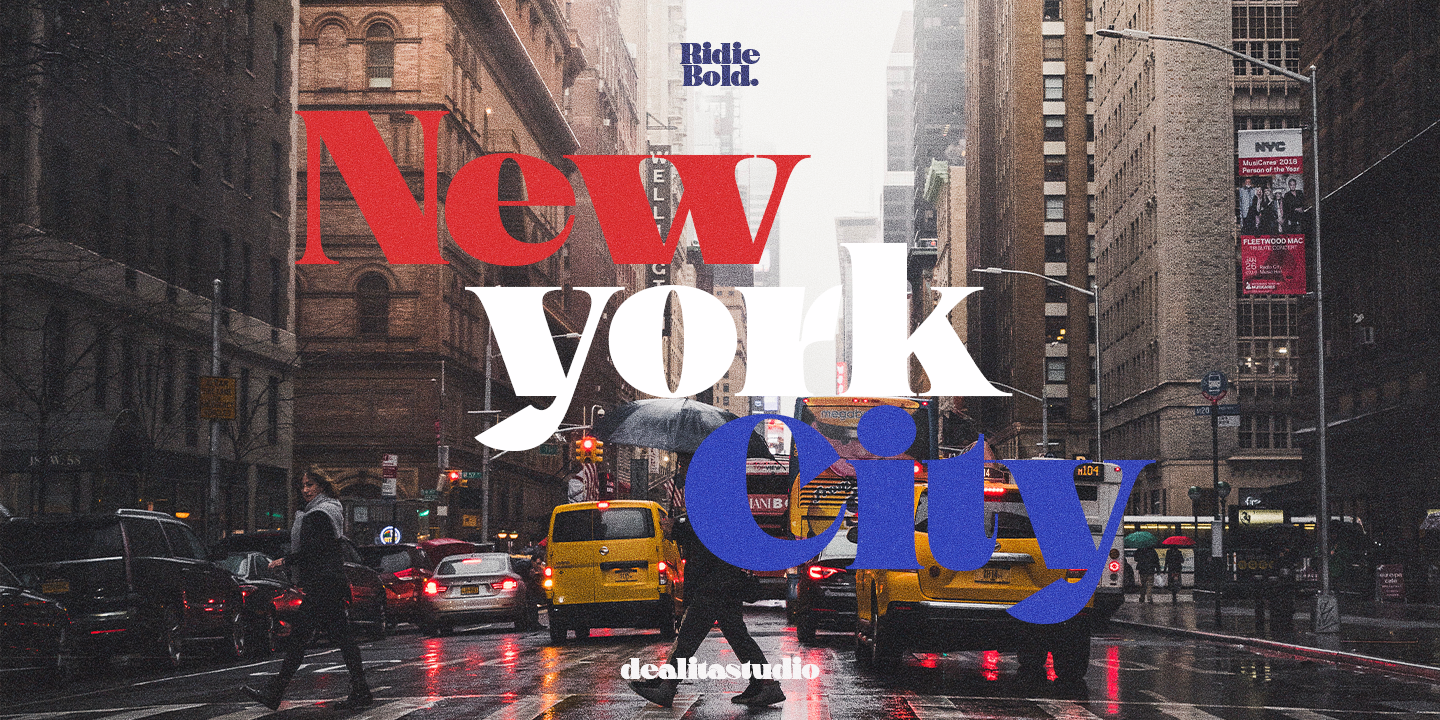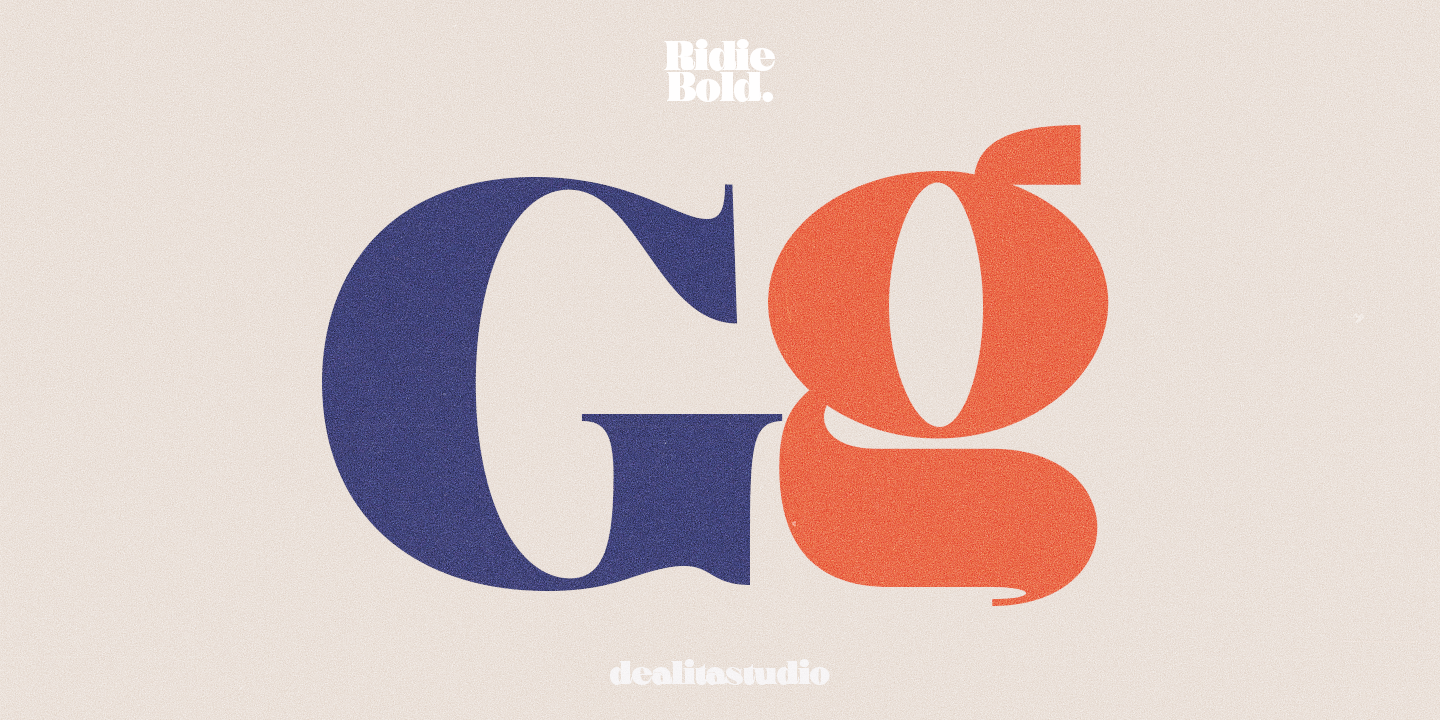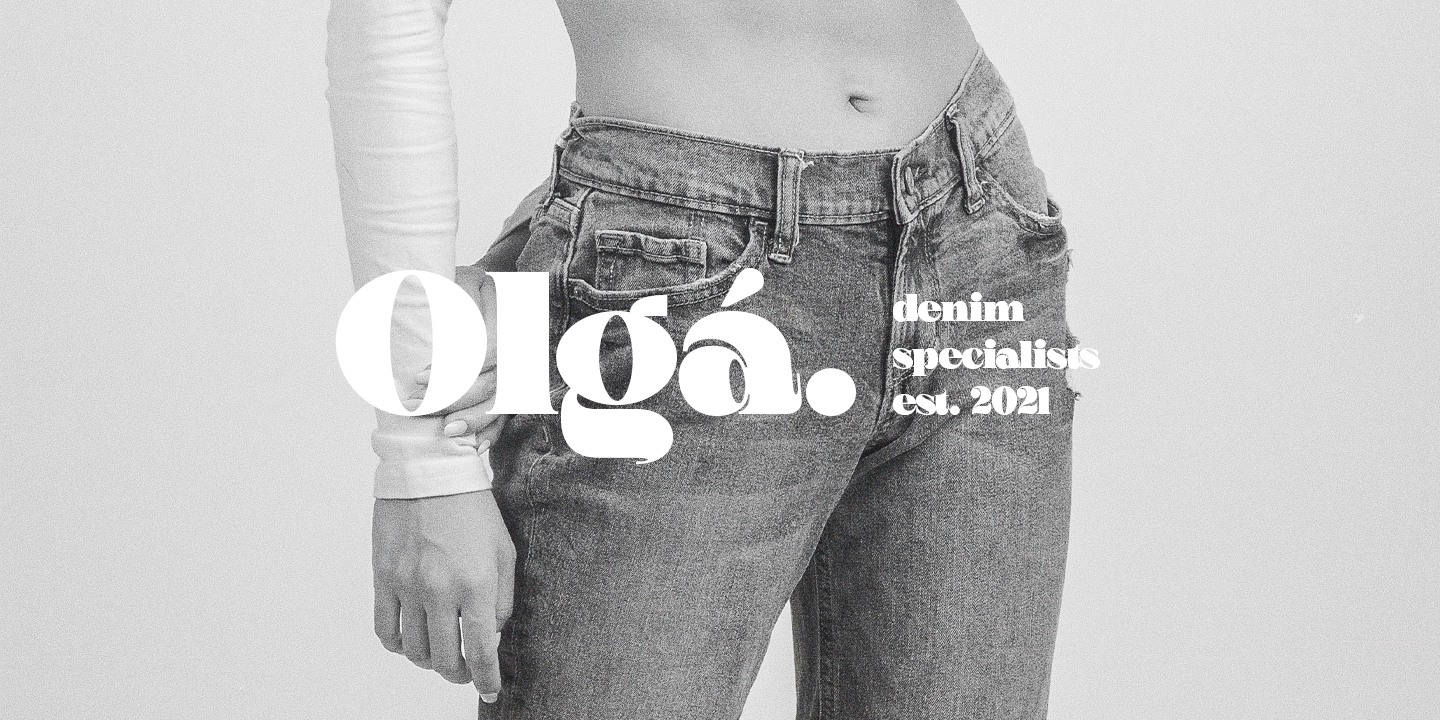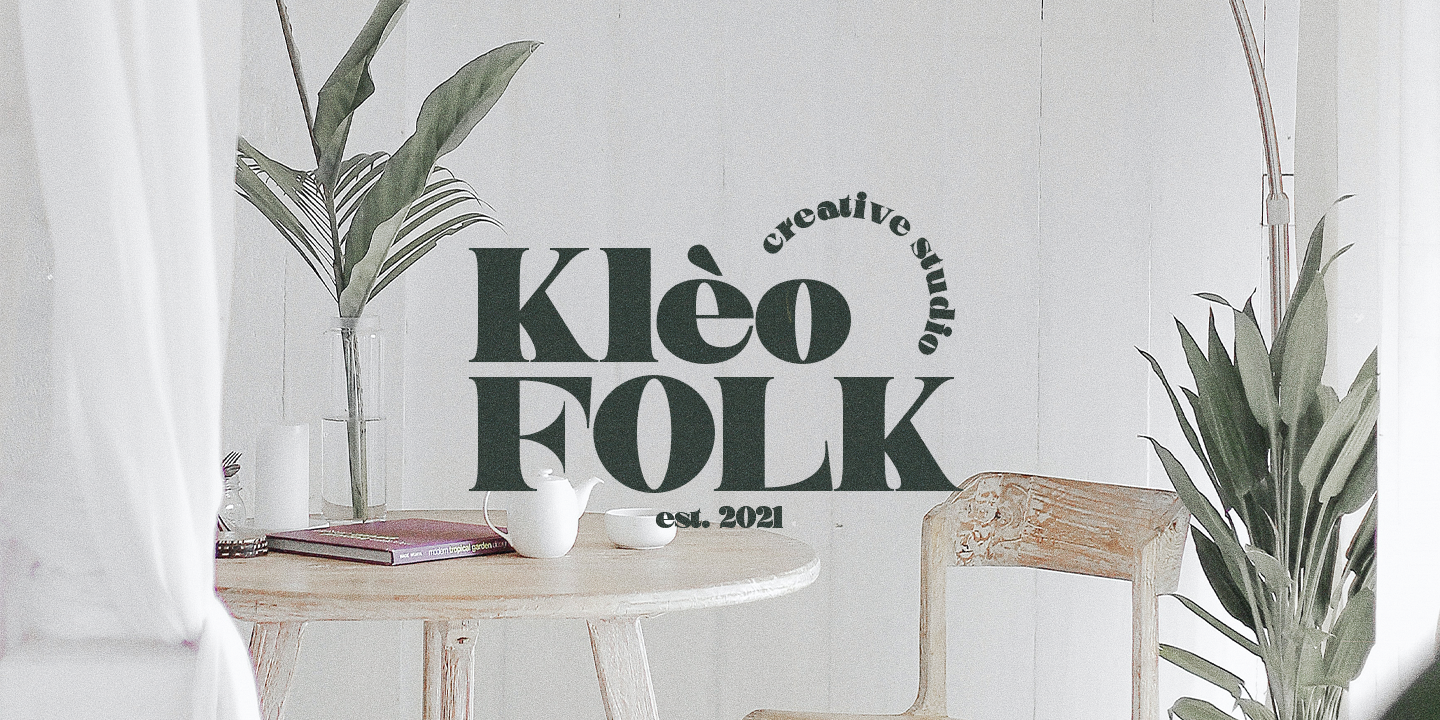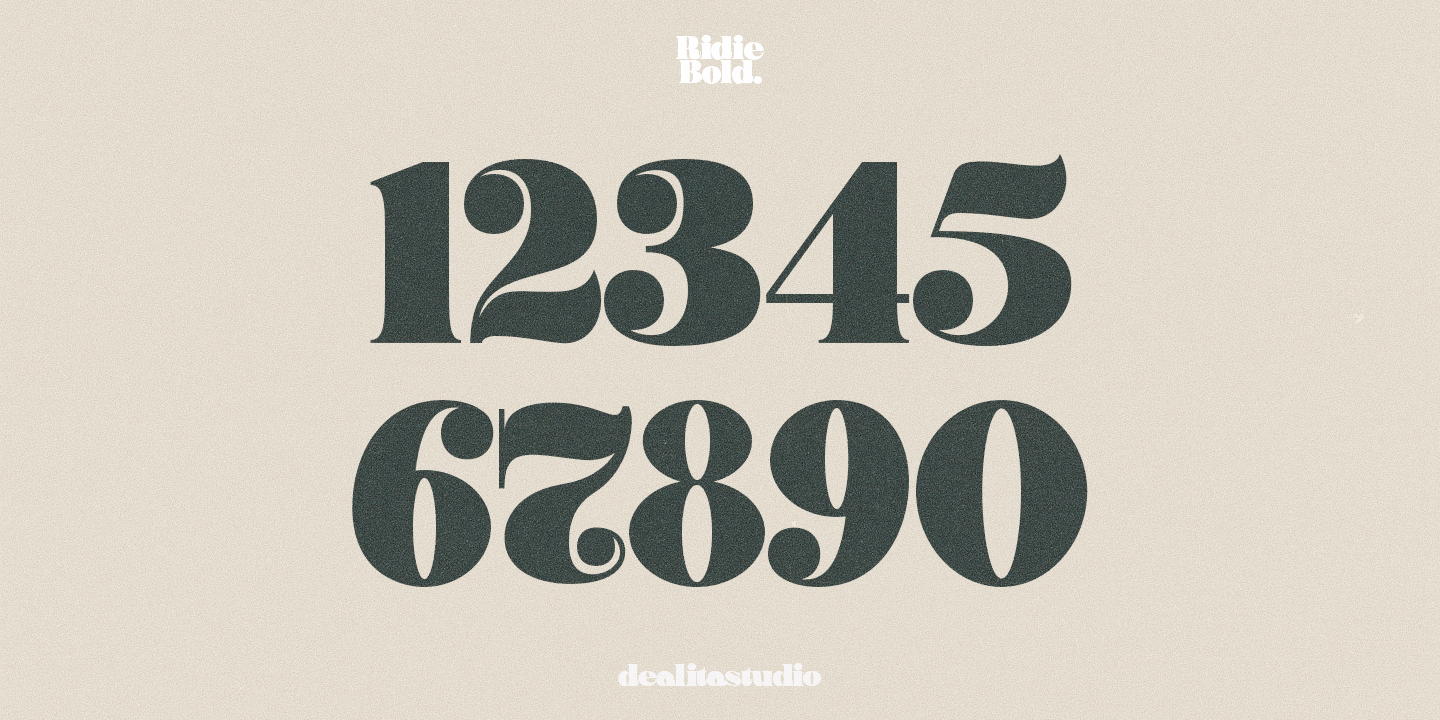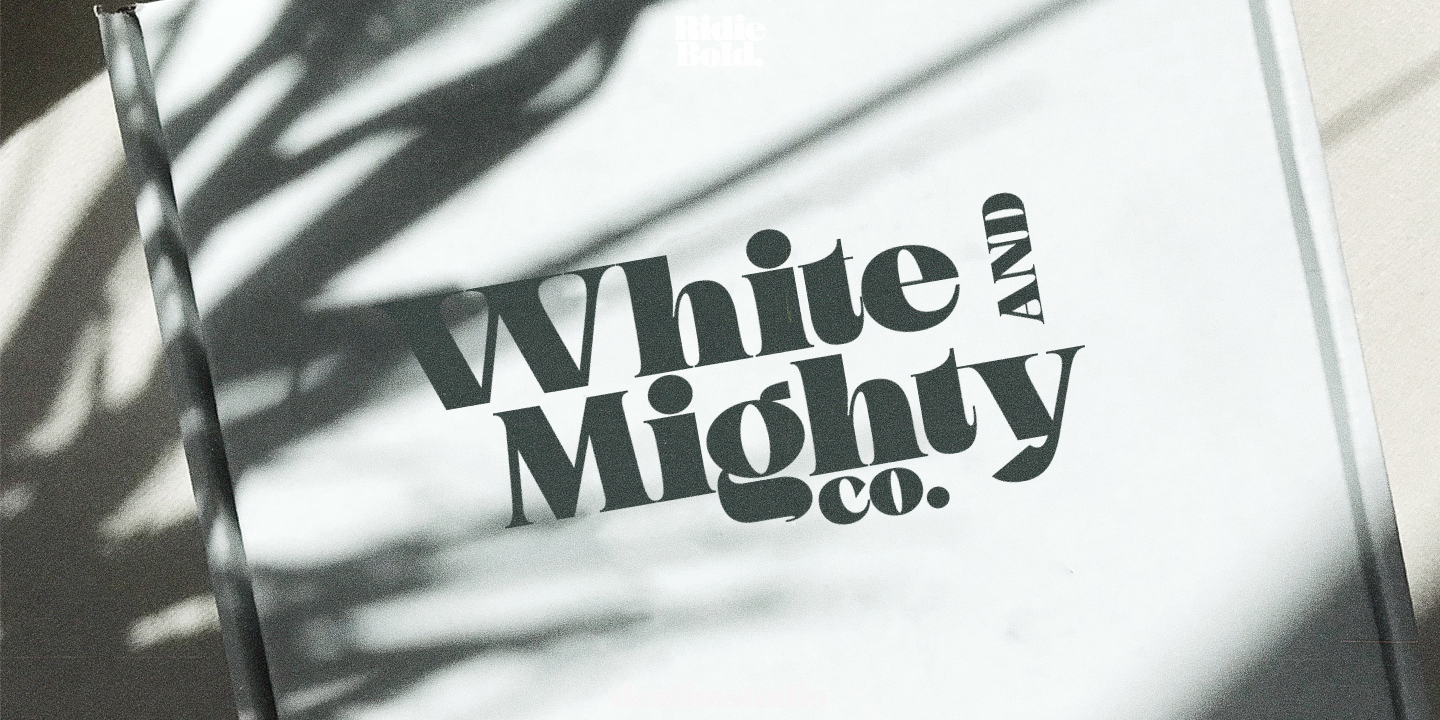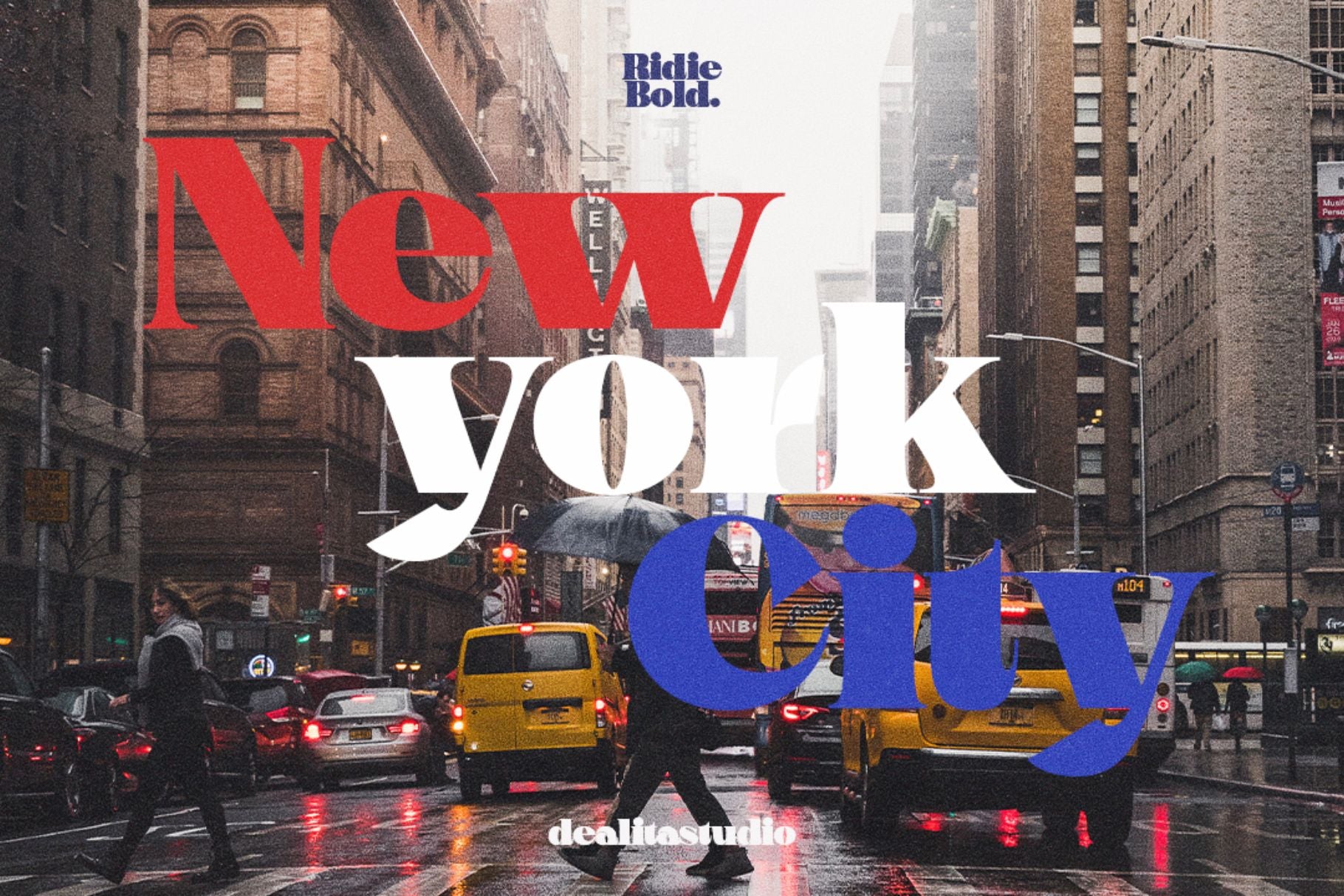
Ridie by Dealita Studio is a bold, powerful display serif font designed for maximum impact and dramatic presence. With its strong contrast, sharp serifs, and commanding structure, Ridie is perfect for headlines, posters, magazine covers, and branding projects that demand attention and authority.
Ideal for editorial design, fashion campaigns, and statement logos, Ridie adds a sense of strength and confidence to your typography. Its bold character makes it ideal for projects where you want the text to be the focal point — whether on a billboard, album cover, or luxury brand identity.
Key features:
Ridie pairs powerfully with minimalist sans-serifs or clean layouts for a striking visual contrast. Use it to create bold designs for:
• Magazine and editorial headlines • Fashion and lifestyle branding • Poster and exhibition design • Statement logos and brand identities • Social media graphics and quotes
Whether you’re launching a bold new campaign or designing a high-impact editorial layout, Ridie delivers the strength and clarity your project needs.
Command the spotlight — with Ridie, the bold display serif font built for impact and presence.